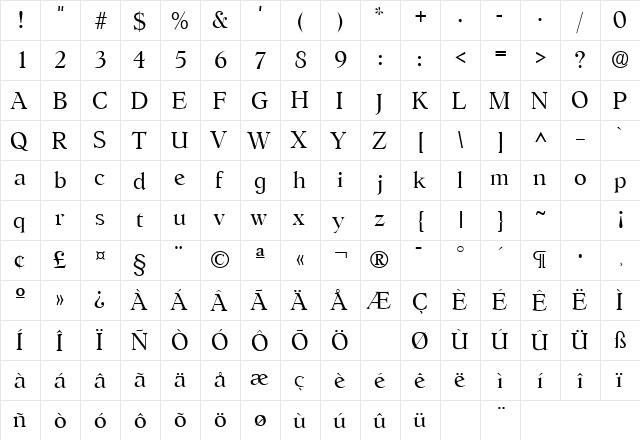
Budoken Light SF Regular
Design Context for Budoken Light SF Typeface
Budoken Light SF takes a measured approach to typography — its balanced proportions and neutral character make it a reliable workhorse for both digital and print work. Its slender proportions lend an understated elegance to any composition.